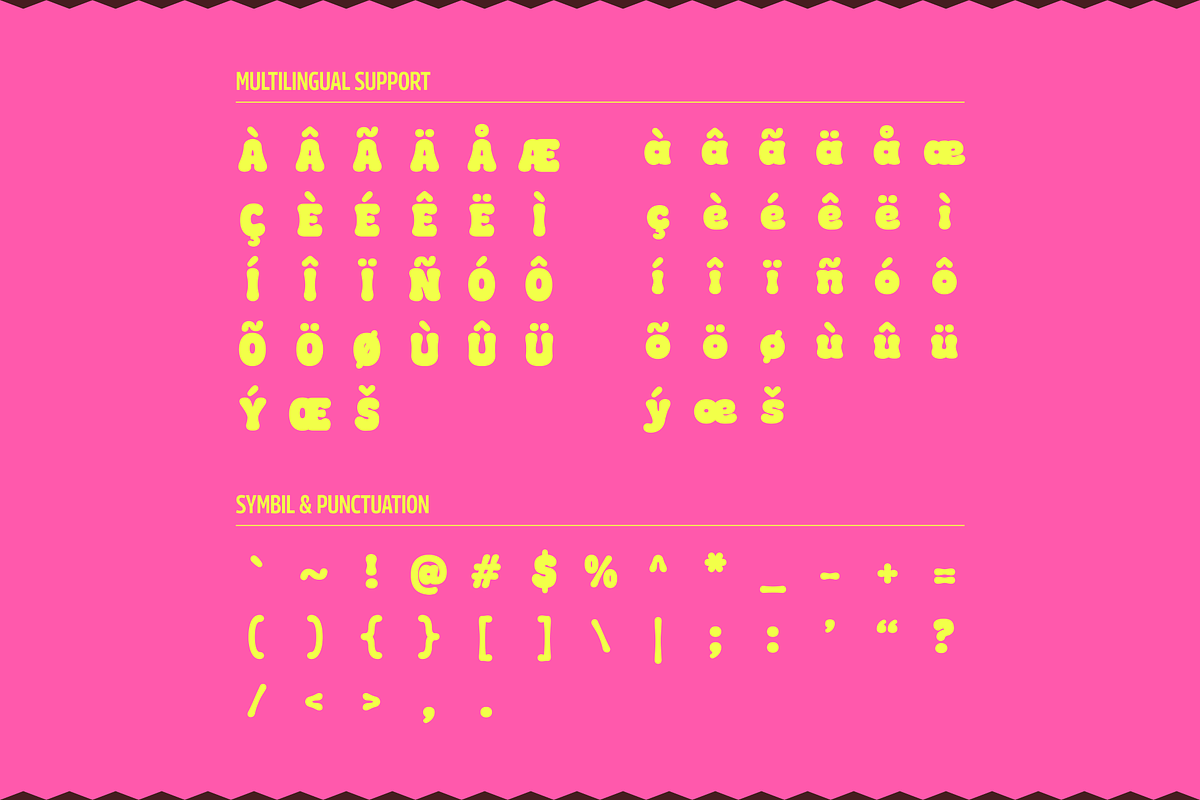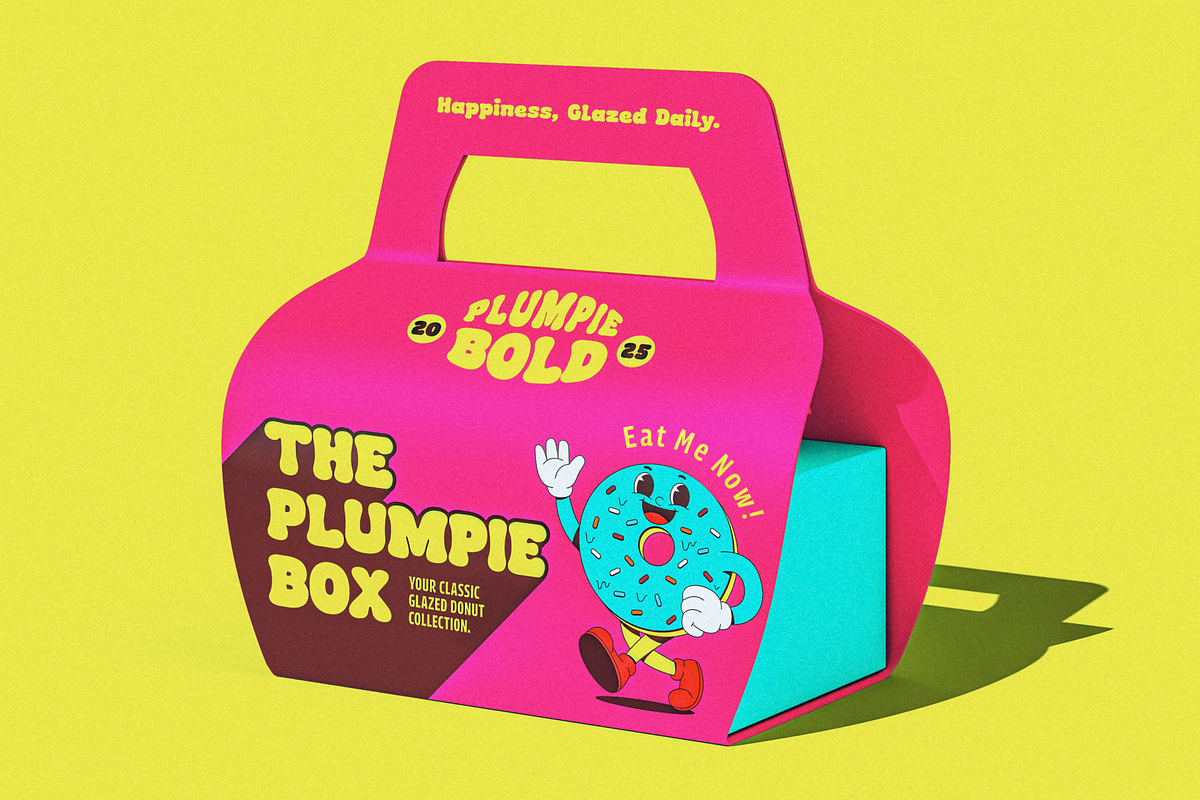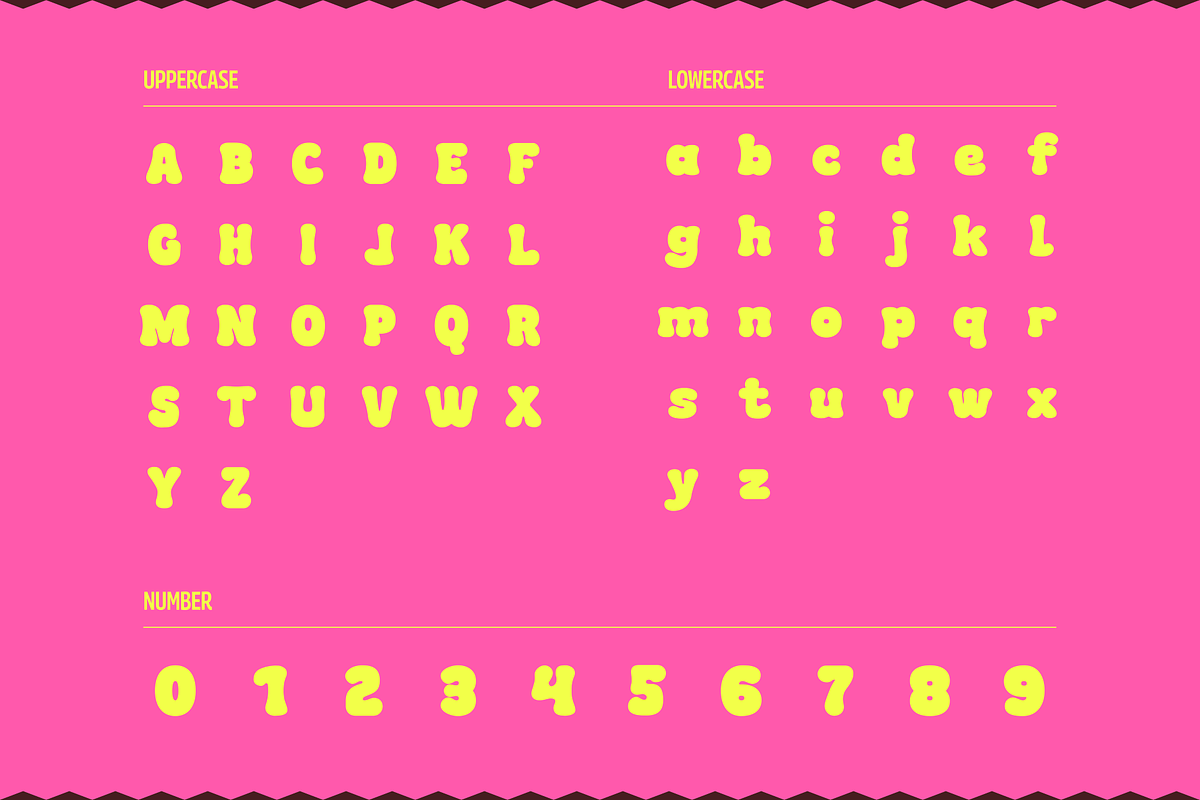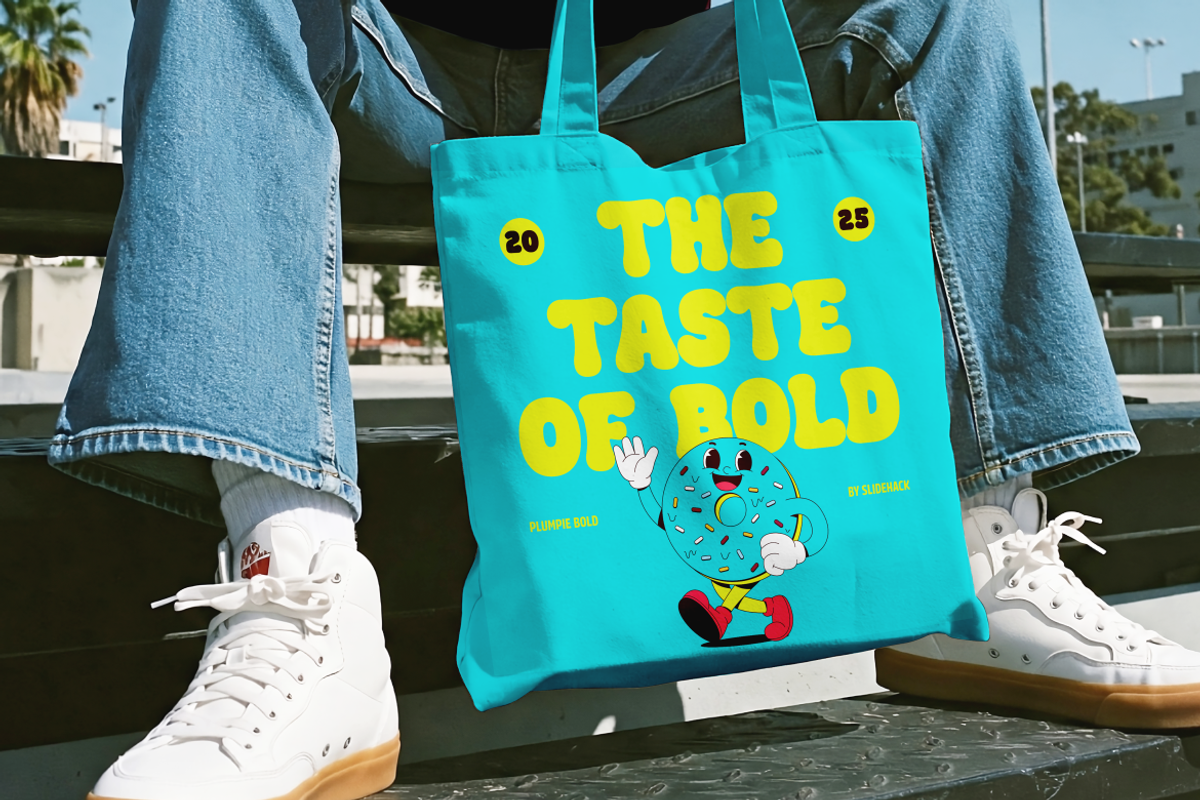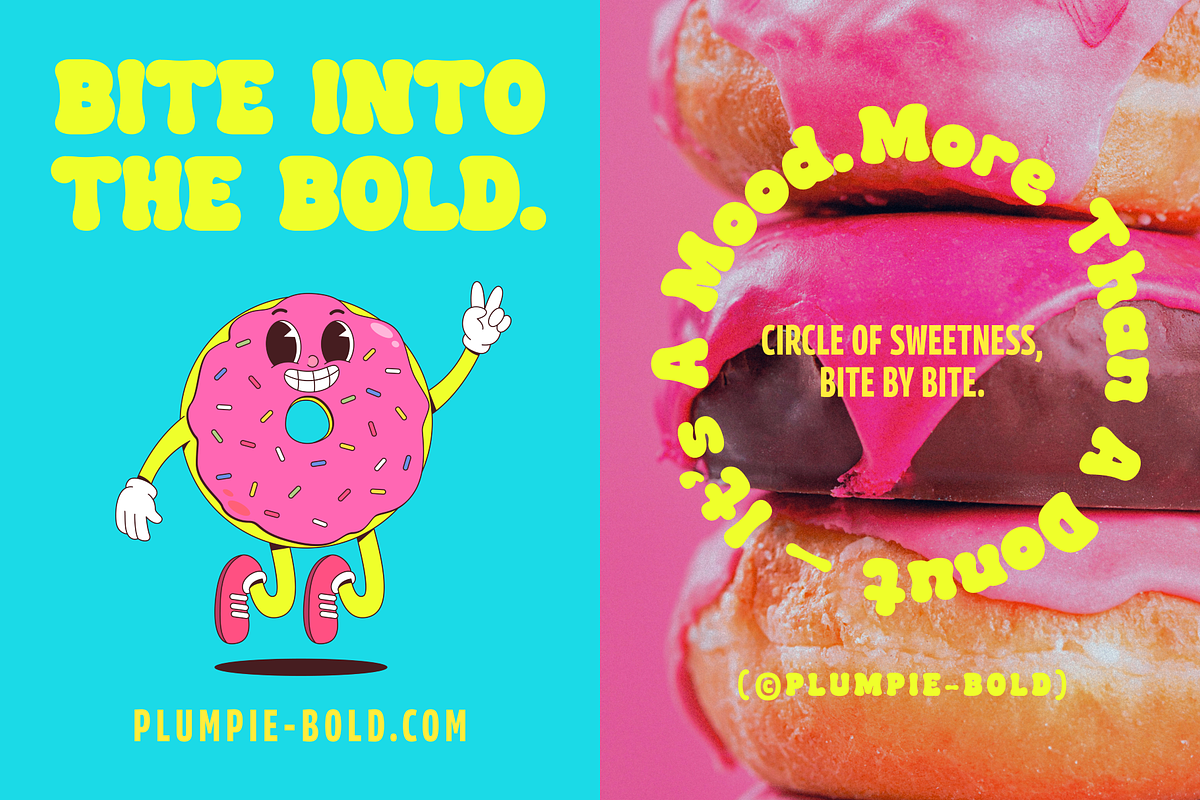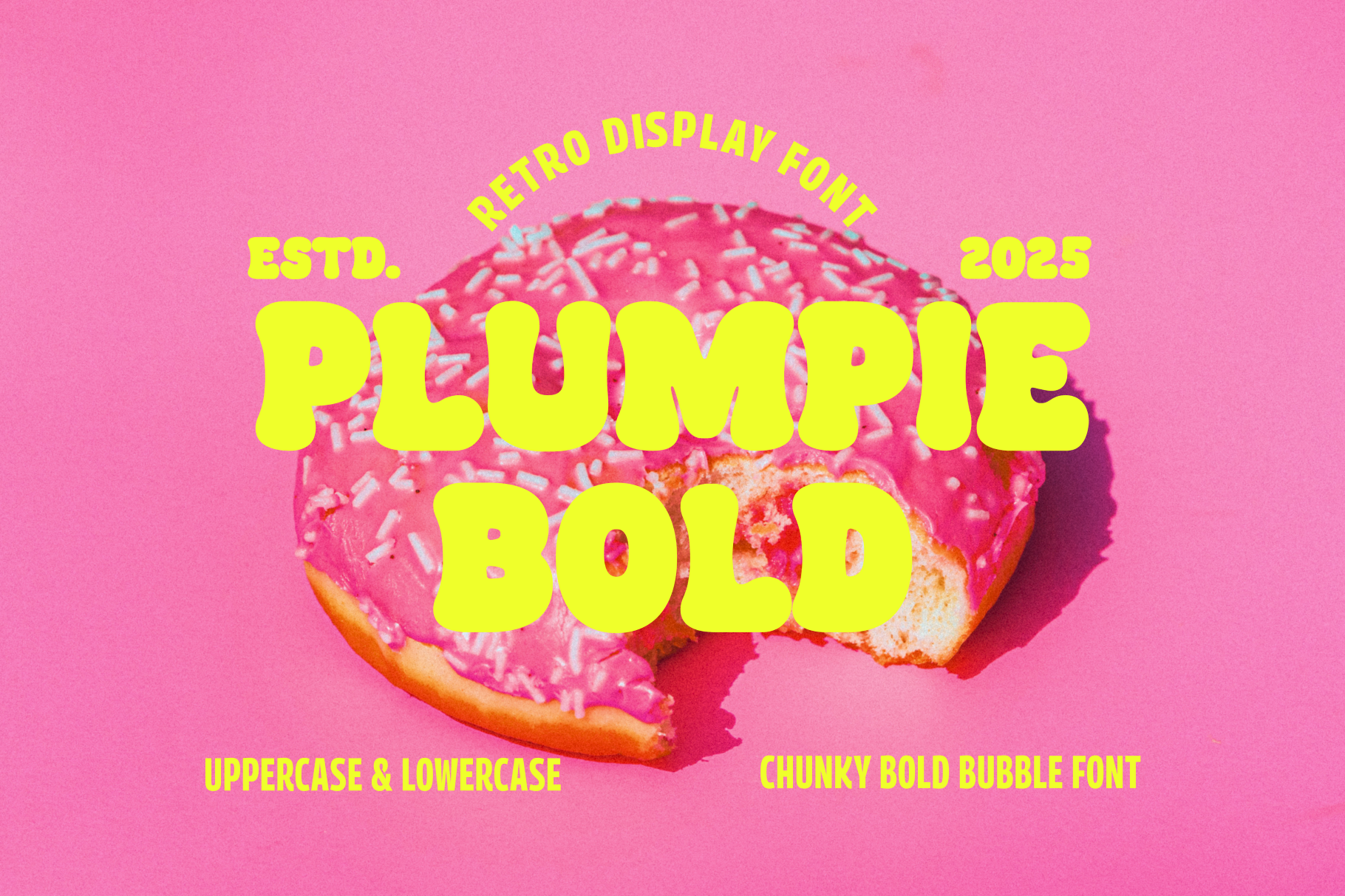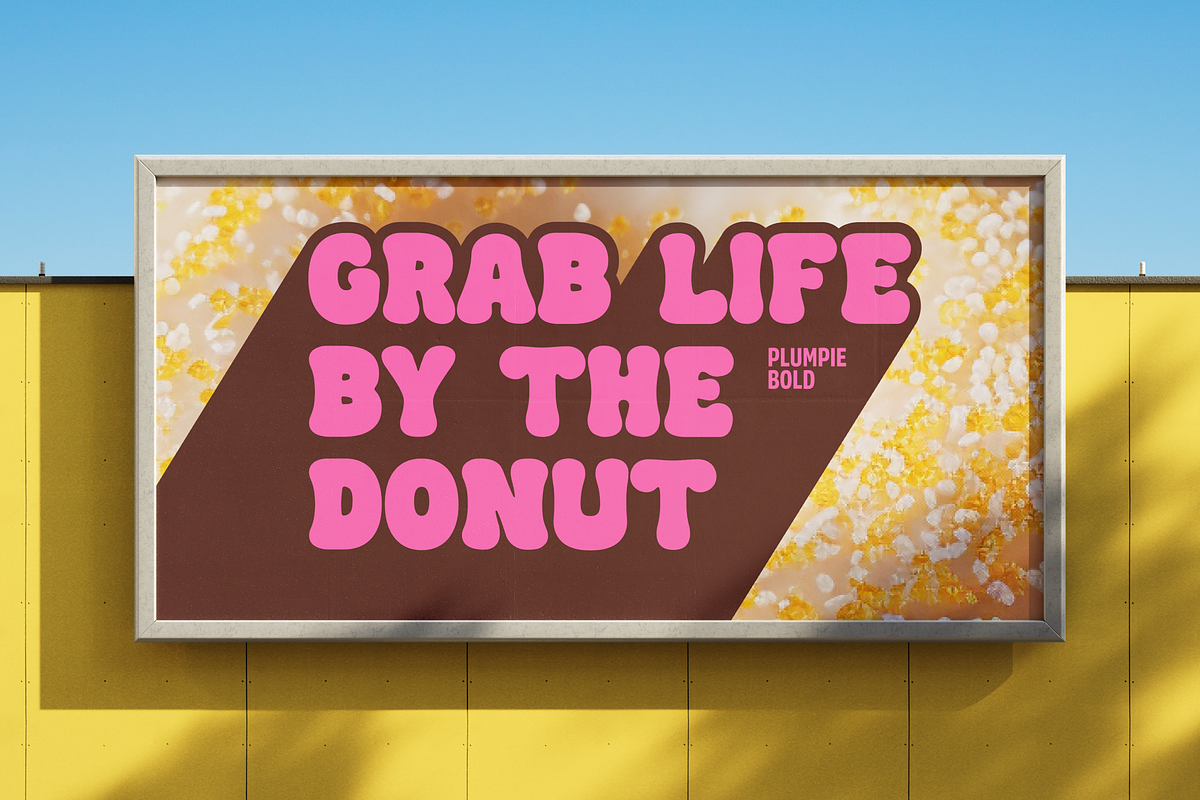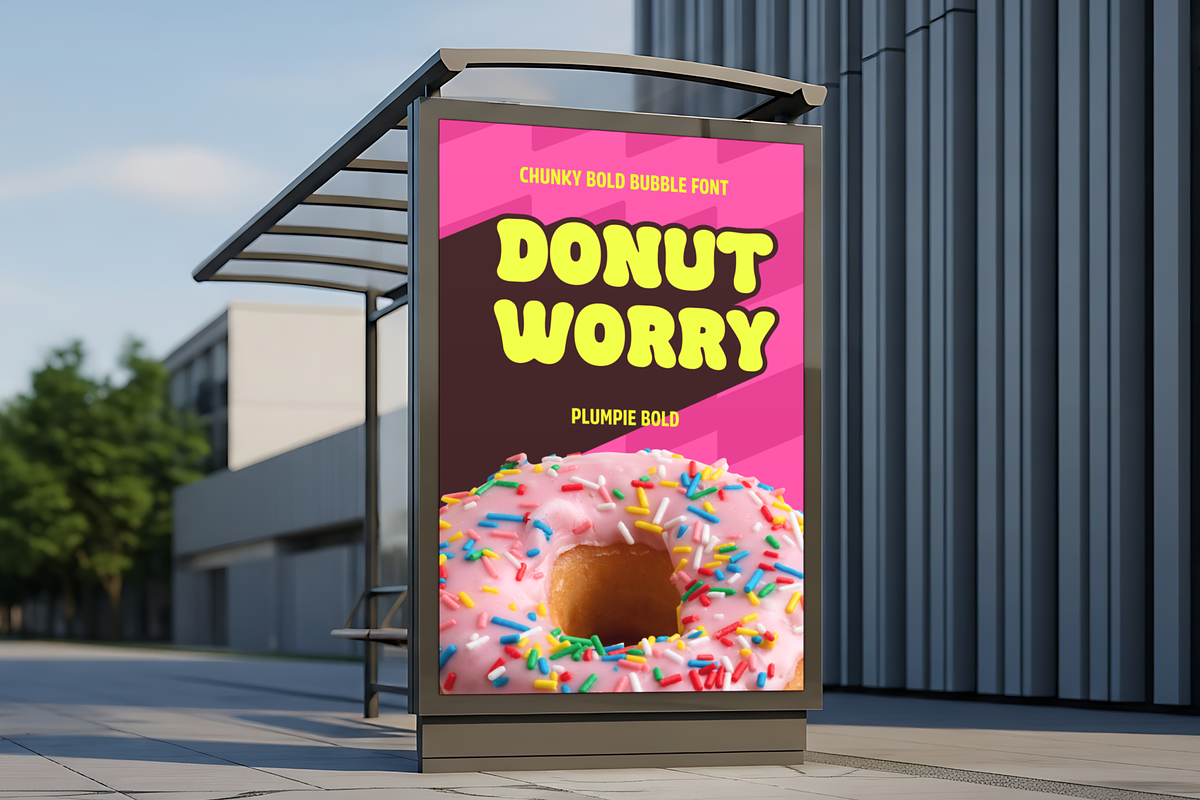
Plumpie Bold - Retro Display Font
Plumpie Bold is a retro display font with a fun, chunky bubble style that brings a playful and nostalgic vibe to any design. Perfect for logos, posters, packaging, and social media graphics, this bold typeface adds warmth and personality, ideal for modern retro brands and eye-catching creative projects.